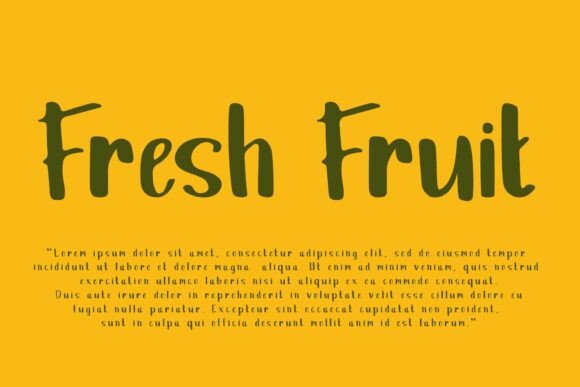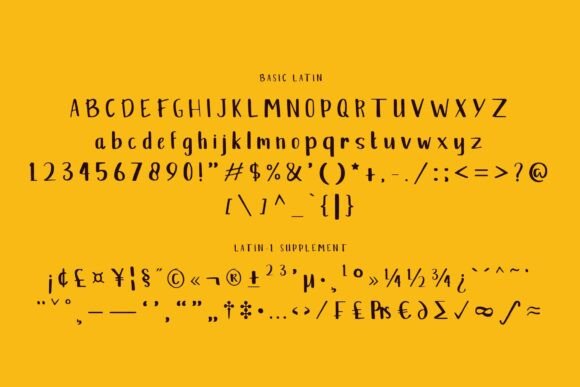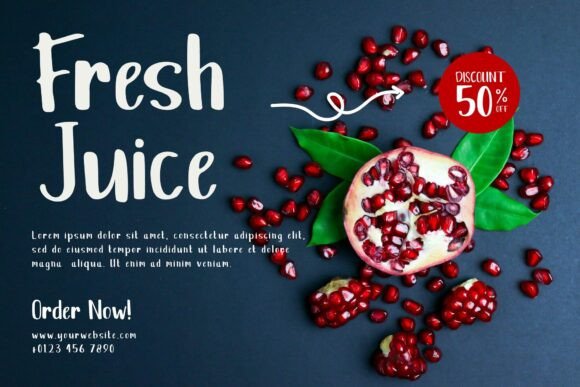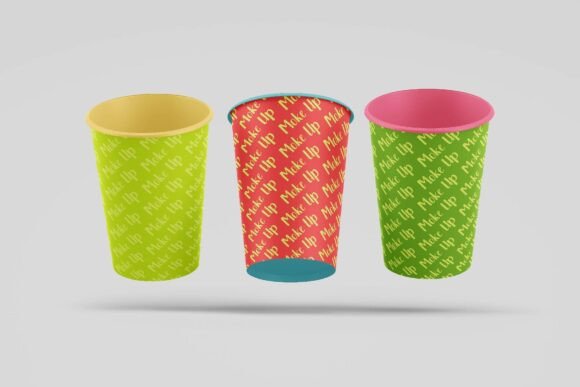
Dadakan Font: Elevate Your Creative Projects with a Personal Touch
Are you searching for a font that can transform your creative projects into stunning masterpieces? Look no further than Dadakan Font! Inspired by the beauty of natural handwriting, this font is specially designed for those who want to add a personal touch and minimalist aesthetic to their creations. With its unique blend of simplicity and flexibility, Dadakan Font is perfect for elevating all kinds of design projects.
The Inspiration Behind Dadakan Font
Dadakan Font is inspired by the beauty of natural handwriting, which is characterized by its imperfections and uniqueness. The font’s creator aimed to capture the essence of handwriting and translate it into a digital font that can be used in various design projects. The result is a font that exudes a sense of warmth, elegance, and sophistication.
Key Features of Dadakan Font
Dadakan Font boasts several key features that make it an ideal choice for designers and crafters. Some of its notable features include:
• Natural Handwriting Style: Dadakan Font has a natural handwriting style that adds a personal touch to your designs.
• Minimalist Aesthetic: The font’s minimalist design makes it perfect for creating elegant and sophisticated designs.
• Flexibility: Dadakan Font is incredibly flexible and can be used in various design projects, from wedding invitations and posters to digital content.
• Easy to Read: The font is easy to read, making it perfect for body text and headings.
Use Cases for Dadakan Font
Dadakan Font is a versatile font that can be used in various design projects. Here are some use cases where Dadakan Font shines:
• Wedding Invitations: Add a personal touch to your wedding invitations with Dadakan Font’s elegant and sophisticated design.
• Artistic Posters: Create stunning posters with Dadakan Font’s unique and artistic style.
• Digital Content: Use Dadakan Font to create engaging and visually appealing digital content, such as blog posts, social media graphics, and more.
• Branding: Establish your brand’s identity with Dadakan Font’s minimalist and elegant design.
Tips for Using Dadakan Font
Here are some tips for using Dadakan Font effectively in your design projects:
• Pair with Other Fonts: Pair Dadakan Font with other fonts to create a unique and visually appealing design.
• Experiment with Colors: Experiment with different colors to find the perfect combination that complements your design.
• Use it for Headings and Body Text: Use Dadakan Font for both headings and body text to create a cohesive design.
In conclusion, Dadakan Font is a versatile and elegant font that can transform your creative projects into stunning masterpieces. With its natural handwriting style, minimalist aesthetic, and flexibility, Dadakan Font is perfect for designers and crafters who want to add a personal touch to their designs. Whether you’re creating wedding invitations, artistic posters, or digital content, Dadakan Font is an excellent choice.